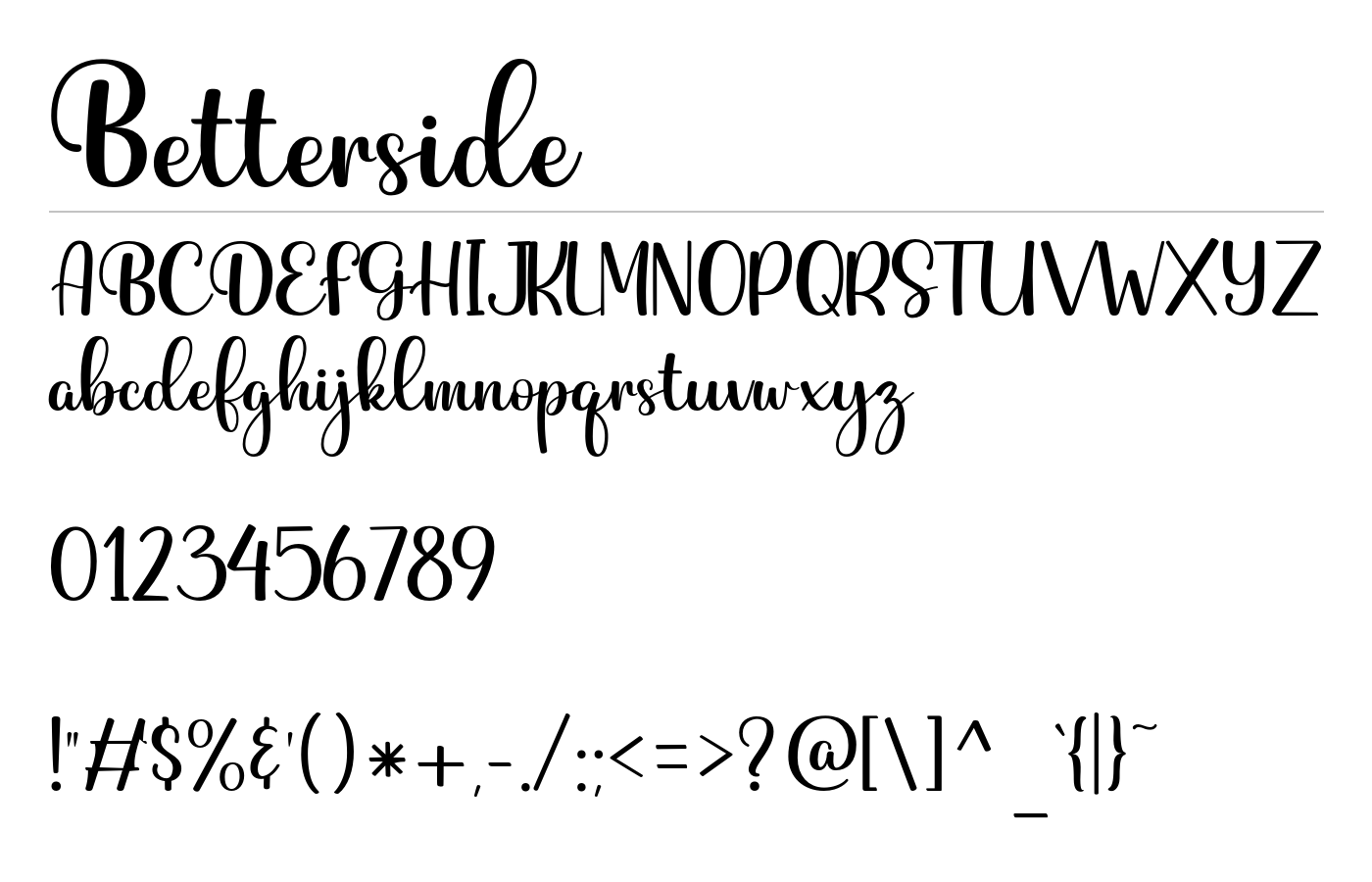
Betterside is a charming script font with a playful yet elegant feel, featuring smooth, flowing strokes and distinct letterforms that blend friendliness with sophistication. Its medium weight and moderately high x-height make it versatile for both headlines and decorative text, ideal for branding, invitations, and creative projects seeking a warm, graceful touch. This font works well where a personal, stylish, and approachable aesthetic is desired, from fashion logos to social media graphics.
Betterside Font